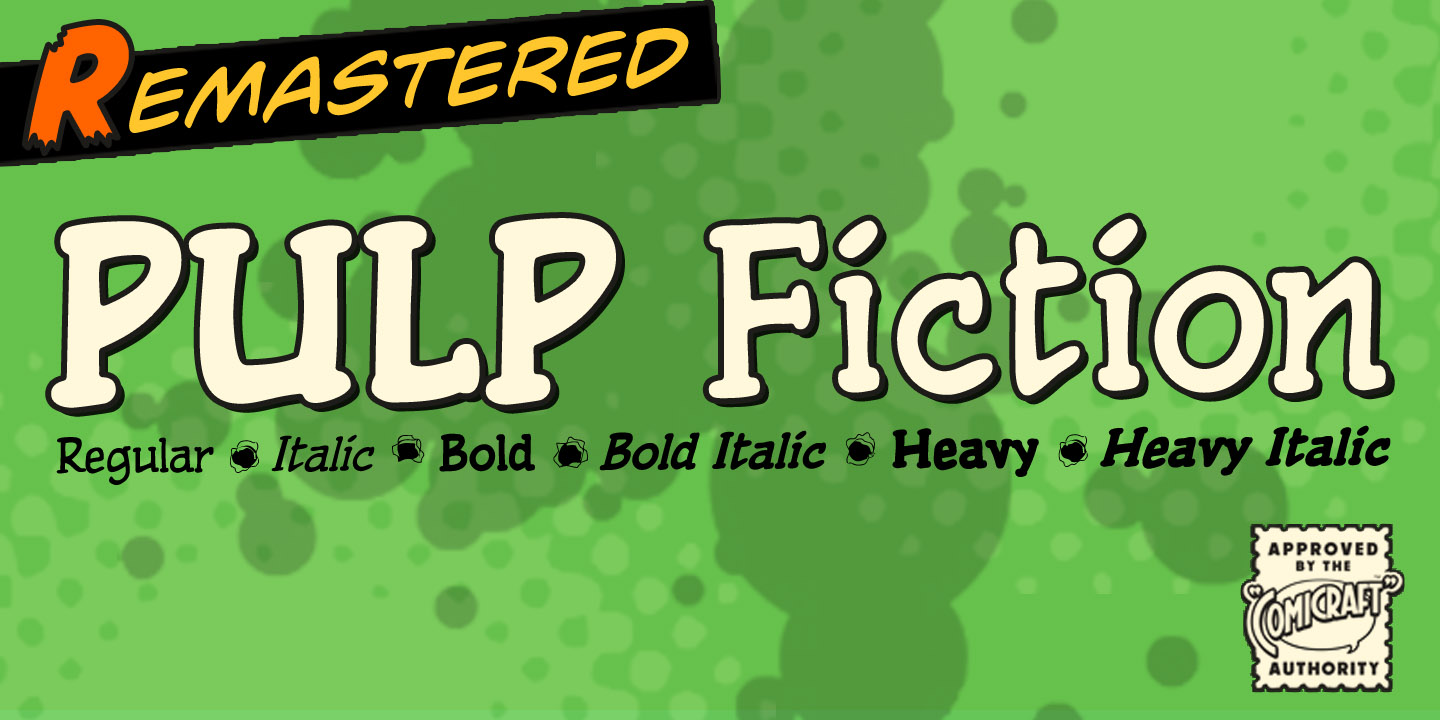
Pulp Fiction Font is perfect for vintage crime novel covers, retro detective story publications, noir film festival promotions, classic mystery book designs, vintage pulp magazine recreations, retro comic book titles, film noir movie posters, vintage entertainment branding, classic detective agency logos, and atmospheric crime drama marketing. Its distinctive pulp character makes it ideal for projects requiring vintage crime aesthetics and noir storytelling authenticity.
What makes Pulp Fiction Font exciting is its atmospheric embodiment of vintage crime culture and noir storytelling with dramatic letterforms and mysterious characteristics that capture the essence of classic detective fiction and pulp magazine excellence. The font features bold contrast ratios, noir-inspired details, and dramatic character construction that create authentic vintage crime atmosphere and mysterious appeal. Its compelling personality brings intrigue and authenticity to contemporary designs while maintaining the readability essential for storytelling communications and vintage entertainment presentations. The carefully crafted noir elements ensure visual drama while preserving the distinctive character that embodies the essence of pulp fiction and crime story excellence.
Pulp Fiction Font comes in multiple atmospheric variations including Light, Regular, Medium, Bold, and Noir styles. Each family member maintains the distinctive crime character while offering comprehensive flexibility for vintage typography and noir brand system development. The complete font family includes alternate characters, vintage symbols, and dramatic decorative elements that provide extensive tools for creating immersive crime design experiences and authentic pulp fiction brand storytelling.
Whether you're developing vintage entertainment brands, crime fiction publications, or noir-inspired projects, Pulp Fiction Font Free Download provides the atmospheric authenticity needed to communicate with mystery enthusiasts and vintage culture audiences who appreciate classic crime aesthetics and noir storytelling excellence. The font's dramatic appeal resonates with mystery writers, vintage collectors, and noir entertainment professionals seeking authentic crime credibility and vintage sophistication. Its comprehensive character set includes vintage symbols and noir marks, making it perfect for creating complete crime brand systems and memorable vintage storytelling across diverse entertainment applications and mystery-focused design projects that celebrate pulp fiction and noir excellence.